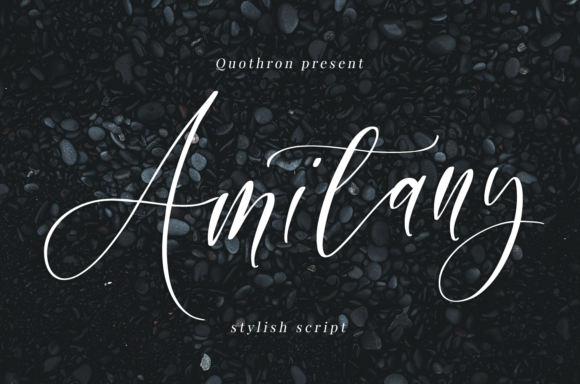
The Perfect Balance of Elegance and Strength
As a designer, there’s nothing quite like the thrill of discovering a new font that perfectly captures the essence of your latest project. For me, it’s often a moment of pure serendipity – scrolling through a font library, stumbling upon a hidden gem, and knowing instantly that it’s the one. That’s exactly what happened when I first laid eyes on Amitany Font.
Amitany Font is a beautifully crafted typeface that effortlessly balances elegance and strength, making it a versatile addition to any craft library. Its unique blend of classic and modern elements gives it a timeless quality that’s sure to elevate any design project. Whether you’re working on a branding campaign, a marketing brochure, or a website, Amitany Font is sure to bring a touch of sophistication and refinement to your work.
For designers, Amitany Font is a valuable asset that can help take your projects to the next level. Its adaptability and unique character make it an ideal choice for a wide range of applications, from digital displays to print materials. With Amitany Font on your side, the possibilities are endless – and your designs will be all the better for it.
Amitany Font Key Features
- Unique Characteristic: Amitany Font features a unique blend of modern and traditional design elements, making it a versatile choice for various design projects.
- Font Weight: Amitany Font comes in multiple weights, including Light, Regular, Medium, and Bold, allowing designers to achieve the desired level of emphasis and contrast.
Amitany Font Review
Amitany Font is an interesting addition to the world of typography. I found it to be a versatile and stylish font that works well for a variety of projects.
- The Amitany Font’s unique blend of modern and vintage elements makes it perfect for projects that need a touch of nostalgia.
- The font’s high x-height makes it easy to read, even at smaller font sizes.
- The Amitany Font supports a wide range of languages, making it a great choice for global projects.
Limitedities ⚠️
- The font’s weight range is somewhat limited, with only 5 weights available.
- The Amitany Font may not be the best choice for projects that require a lot of fine-tuned typography adjustments.
- The font’s OpenType features are somewhat limited, which may be a drawback for designers who rely heavily on these features.
The Amitany Font is a solid choice for designers who are looking for a unique and stylish font that can add a touch of personality to their projects. While it has some limitations, I believe that it can be a valuable addition to any designer’s toolkit.
Tips for Getting the Most Out of Amitany Font
For optimal results, use Amitany Font in bold or italic styles to add emphasis and visual interest.
Pair Amitany Font with clean and simple backgrounds to make your text stand out.
Amitany Font is ideal for:
- Titles and headings
- Product packaging and branding
Alternatives to Amitany Font for Designers
Open Sans is a clean and modern sans-serif font that is highly legible. It is suitable for body text and is often used in digital products and websites. It has a more neutral and minimalist look compared to Amitany Font, which has a more decorative feel.
Montserrat is a geometric sans-serif font that is inspired by the urban environment of Buenos Aires. It is highly legible and has a strong grid structure that makes it perfect for digital displays. Montserrat has a similar urban feel to Amitany Font, but it is more geometric and modern.
Lato is a modern sans-serif font that is highly legible and versatile. It has a friendly and approachable feel that makes it perfect for digital products and websites. Lato is more rounded and smooth compared to Amitany Font, which has a more angular feel.
Inter is a modern sans-serif font that is highly legible and versatile. It has a clean and minimalist design that makes it perfect for digital products and websites. Inter has a similar feel to Amitany Font, but it is more modern and refined.